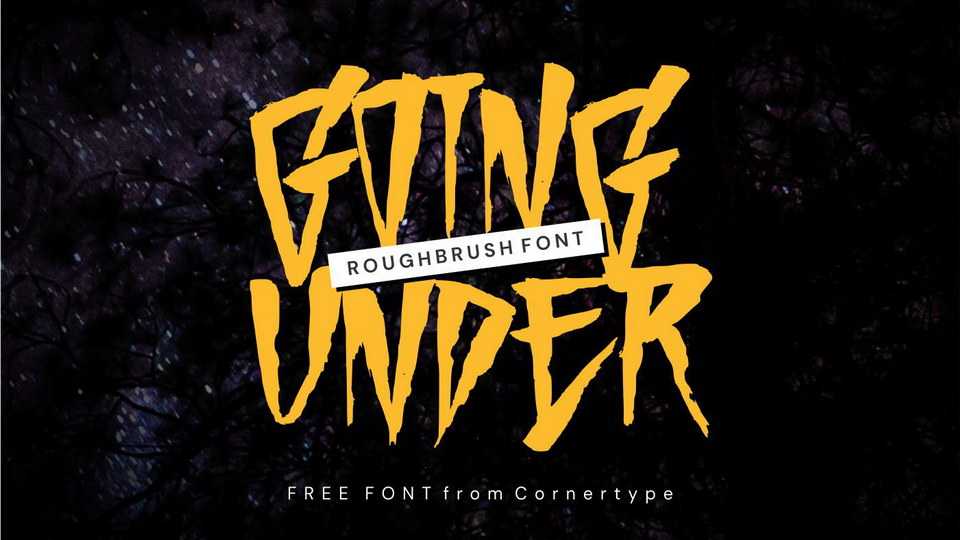
Download Going Under font, a bold hand lettered typeface manual sketched on paper with brushpen, then crafted carefully. It’s inspired from rock n roll and punk music, and pop culture.
Designer: Anang Fibriyanto